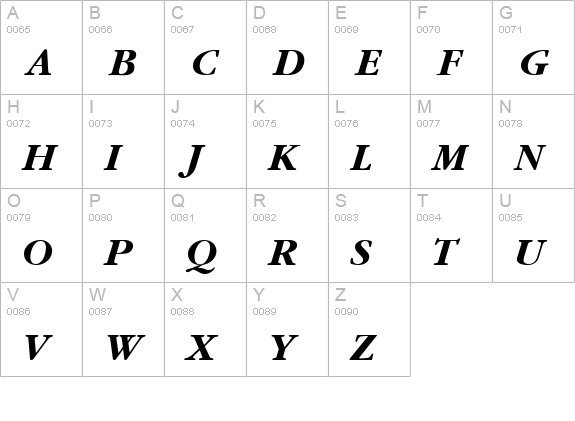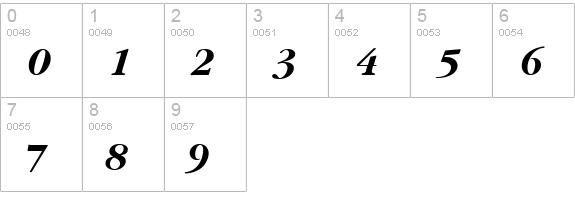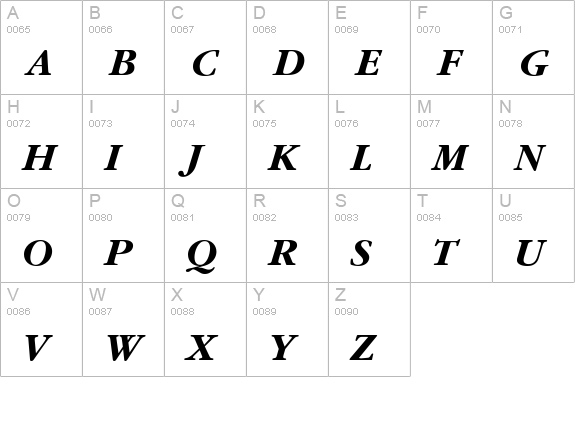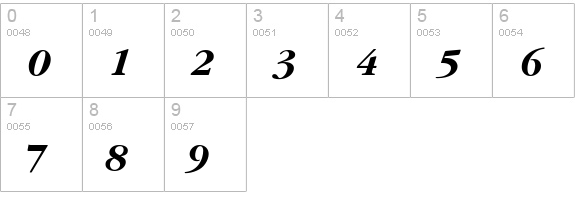
Gatineau Bold Italic is a strong, high-contrast, italic variant in the Gatineau typeface family \xE2\x80\x94 well suited to headlines, attention-grabbing titles, and strong calls-to-action.
Introducing Gatineau Bold Italic font - a striking and dynamic typeface that exudes confidence and modernity. With its bold strokes and elegant italics, Gatineau Bold Italic commands attention and adds a touch of sophistication to any design project. Whether you're creating branding materials, editorial layouts, or digital content, this versatile font is sure to make a statement. The best part? Gatineau Bold Italic is available for free download at FontsMarket.com. Now you can elevate your designs with this premium font without breaking the bank. Don't miss out on the opportunity to add Gatineau Bold Italic to your font collection and take your creative projects to the next level. Download it now and let your creativity shine!